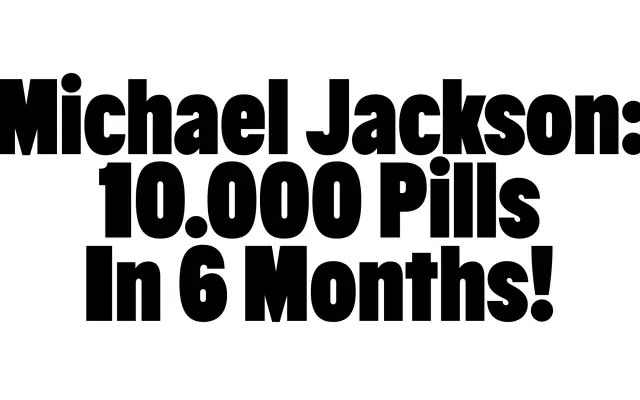
Buzz
A single-weight display type drawn from mid-20th-century American wood typefaces, with deliberate optical imperfections that evoke the materiality of carved letterpress production.
Designed by Quentin Coulombier and mastered at OTT, Buzz takes its cues from the front-page wood type of American newspapers at their peak, particularly the heavy, impactful vernacular of the mid-1900s. Rather than correcting for optical consistency, the typeface intentionally omits standard optical adjustments, producing subtle weight variations that read as handcrafted rather than digital. Rounded curves soften the otherwise imposing mass, sitting somewhere between authoritative and playful.
Buzz is a heavy display typeface drawn explicitly from mid-20th-century American wood type, designed for large-scale headline use with intentional optical irregularities that reflect carved letterpress production.